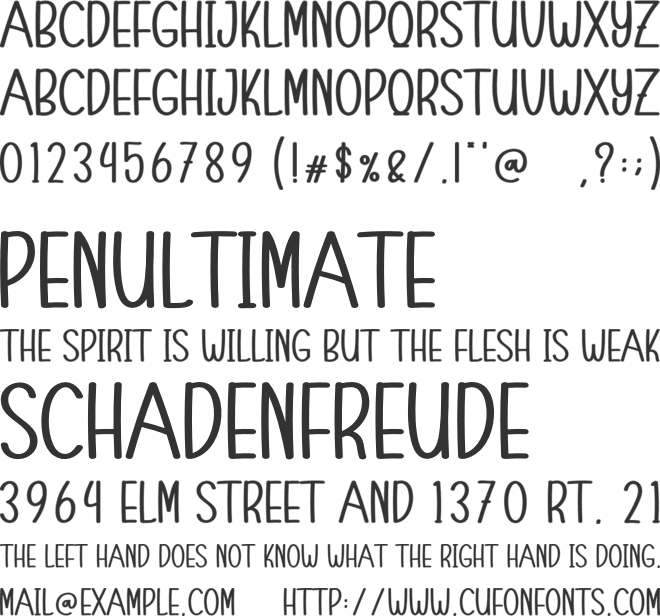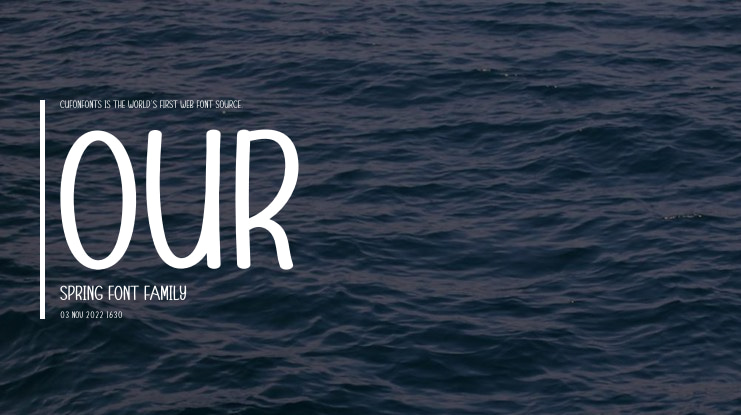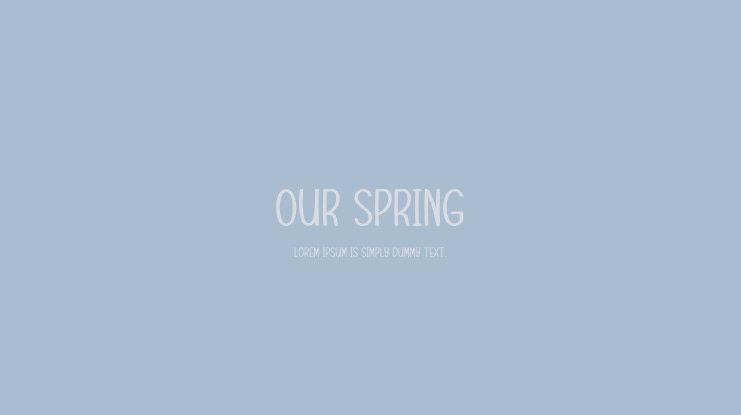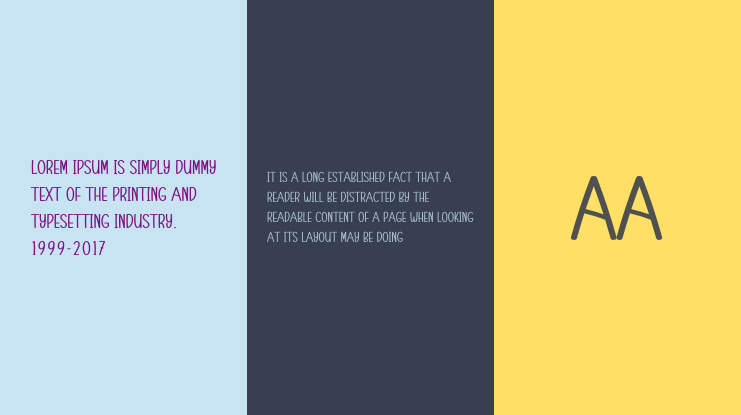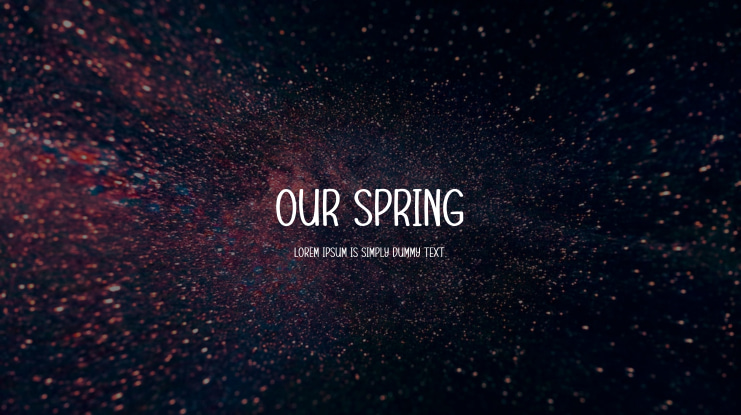
Our Spring Font
This is a sweet and friendly handwritten display font. Cute and fun, this font is ideal for writing wedding invitations, cards, or any other design that might need a playful touch! Visit the following website for commercial purchases: [www.scratchones.com](https://scratchones.com/), or you can contact the following email if you have questions, or for custom fonts, adding font glyphs, editing fonts, and others commercially.